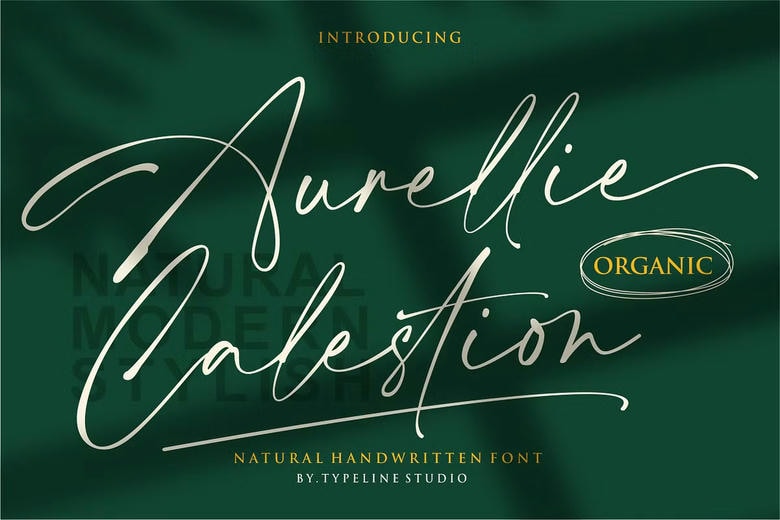
Aurellie Calestion Font
Aurellie Calestion Font is an exquisitely designed script typeface with the impeccable mix of natural grace and antique pretty. This font gives any design project a unique and significant effect with its flowing and handwritten style. Aurellie Calestion is the best possible partner whether you are dealing with captivating headlines, artistic logos or creative branding to help you bring the vision to life.
This gorgeous font is made to be versatile and can be used in wedding invitations, romantic love notes on a Valentine day or any other design that requires a personal, intimate, and stylish touch. Its curves and letters are fluid, which is a timeless value of the tool, and it can be used to create both modern and vintage-inspired designs.
The handwritten aesthetic of the work created by Aurrellie Calestion guarantees that each work is unique and full of personality and charm, which can become a must for any designer who wants to make a memorable and engaging impression. It does not matter whether you are making a logo, a product label, or even personal invitations, this font will be a touch of greatness to what you are doing.
Ideal in creative branding, print material and digital media, Aurellie Calestion is the finishing touch to take your next production to the next level of elegance, style and acquiring a personal touch.
Aurellie Calestion Handwritten Font